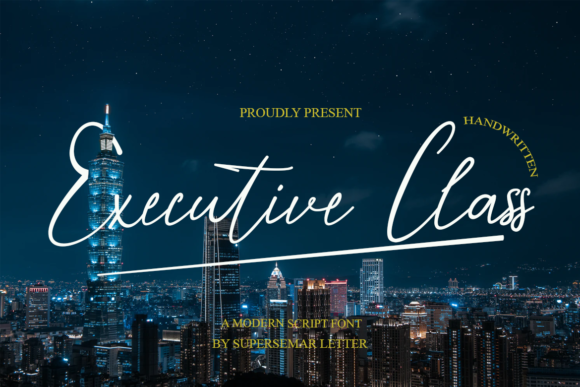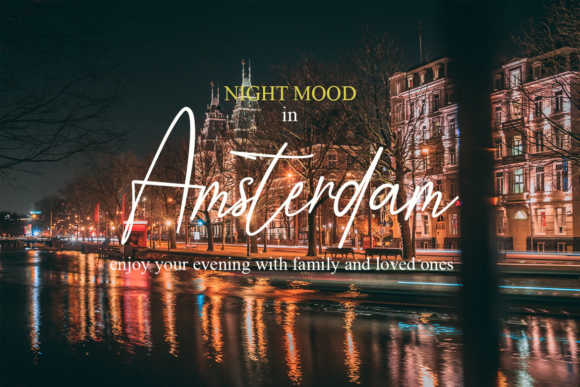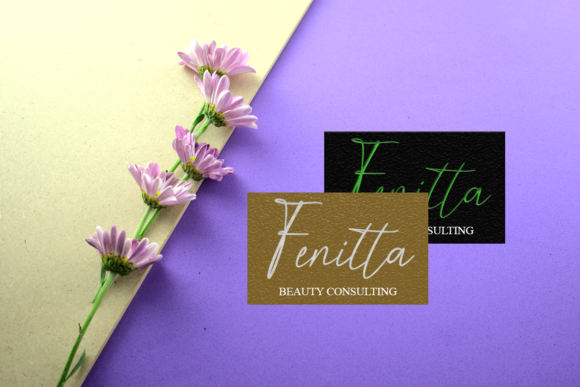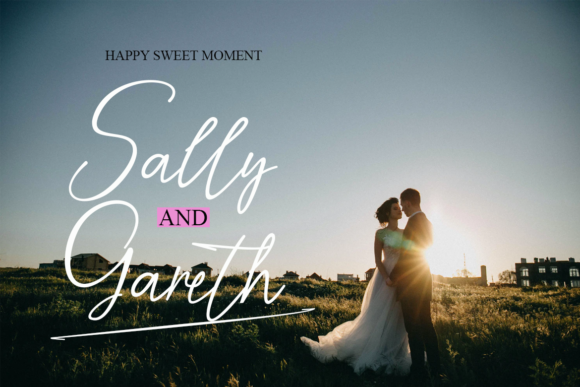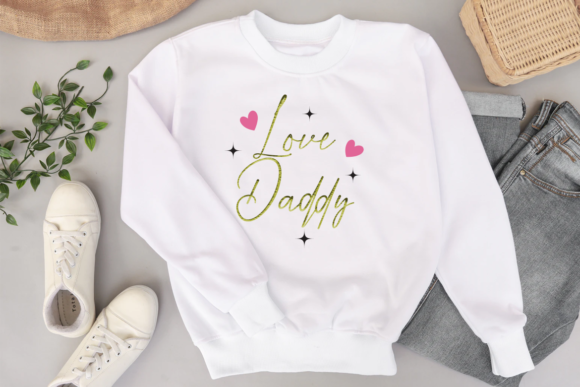
Executive Class Font
About Executive Class Font
Executive Class is a thin and graceful handwritten font. Its distinct and well rounded letters make this font a masterpiece. Fall in love with its incredibly versatile style and use it to create spectacular designs!